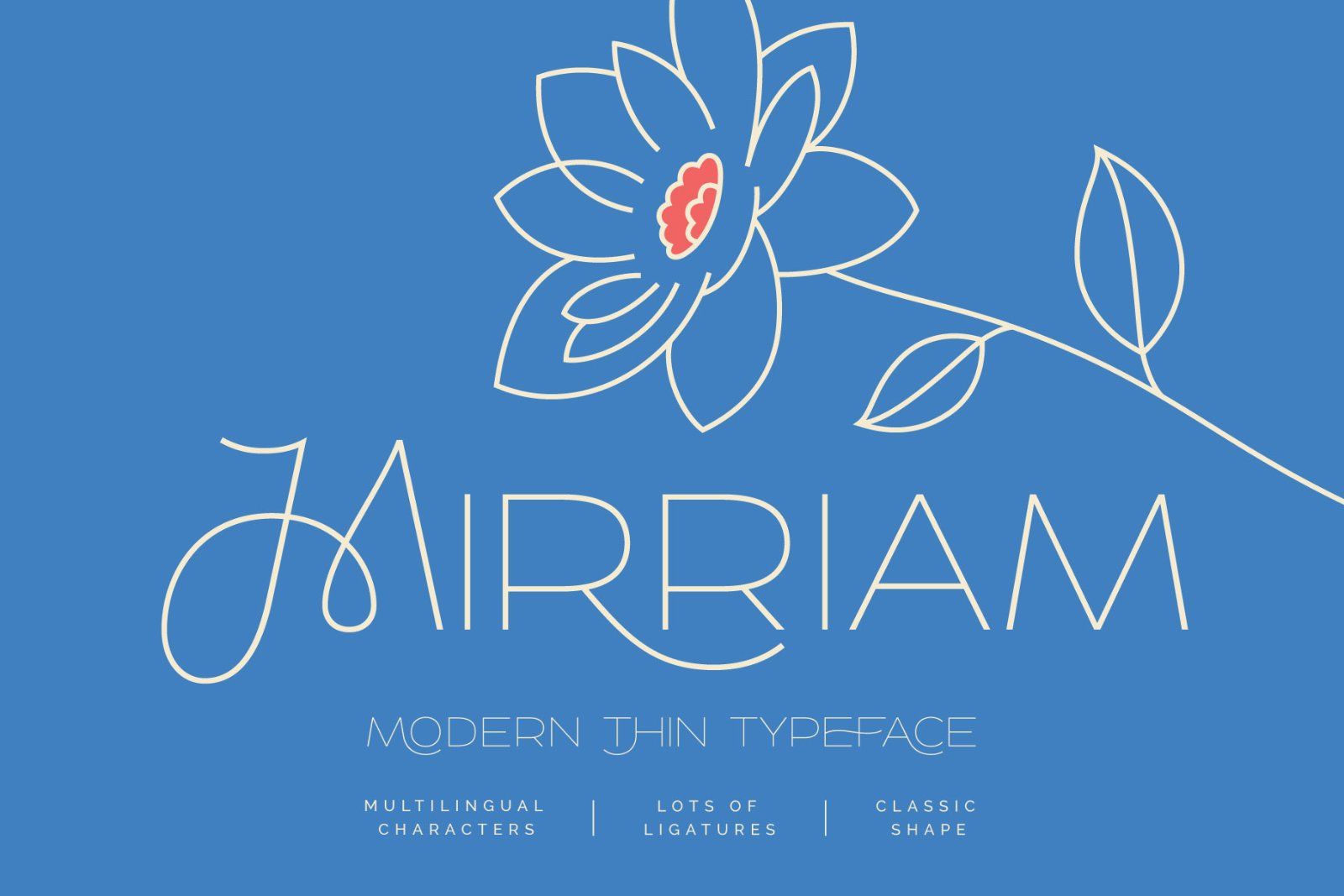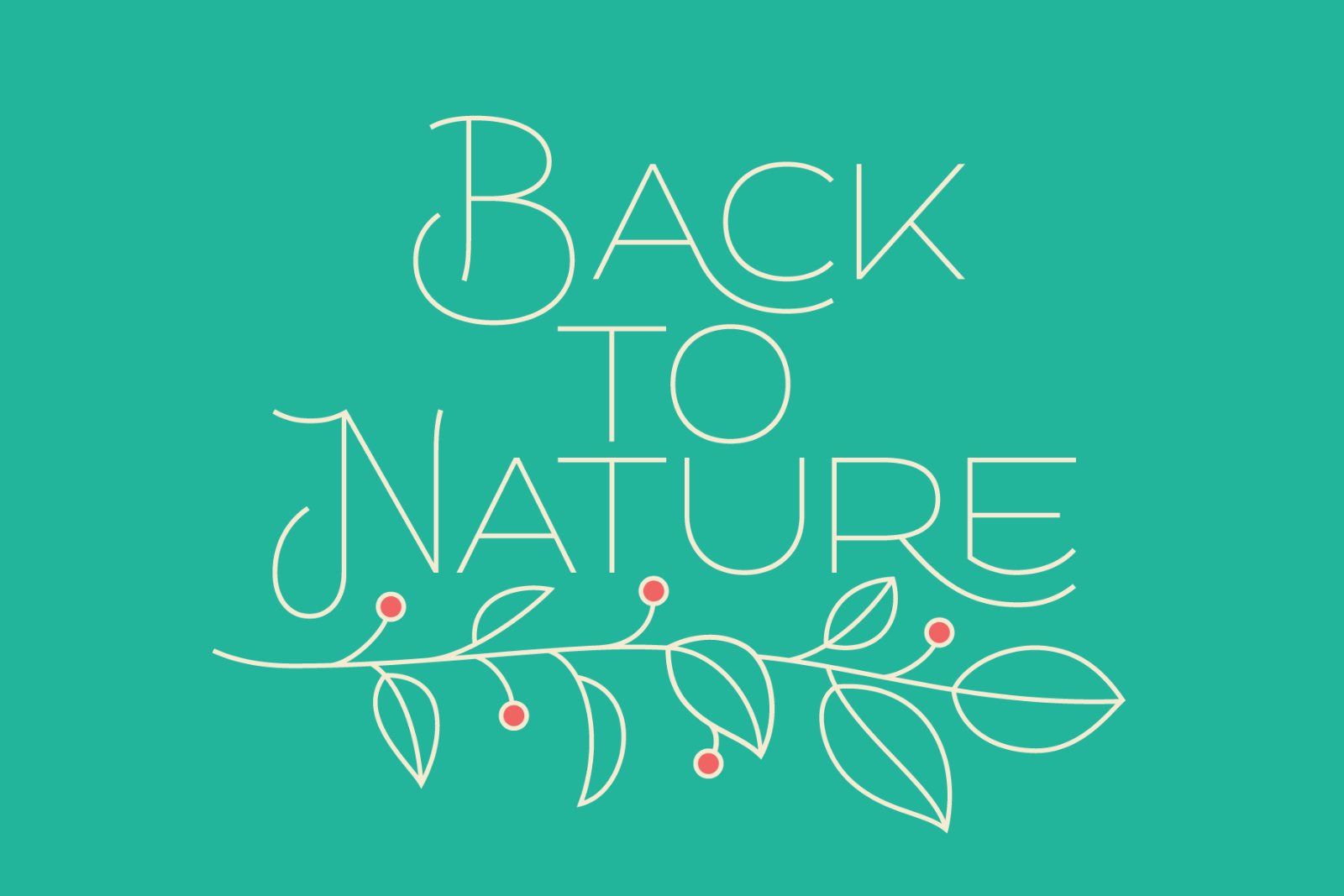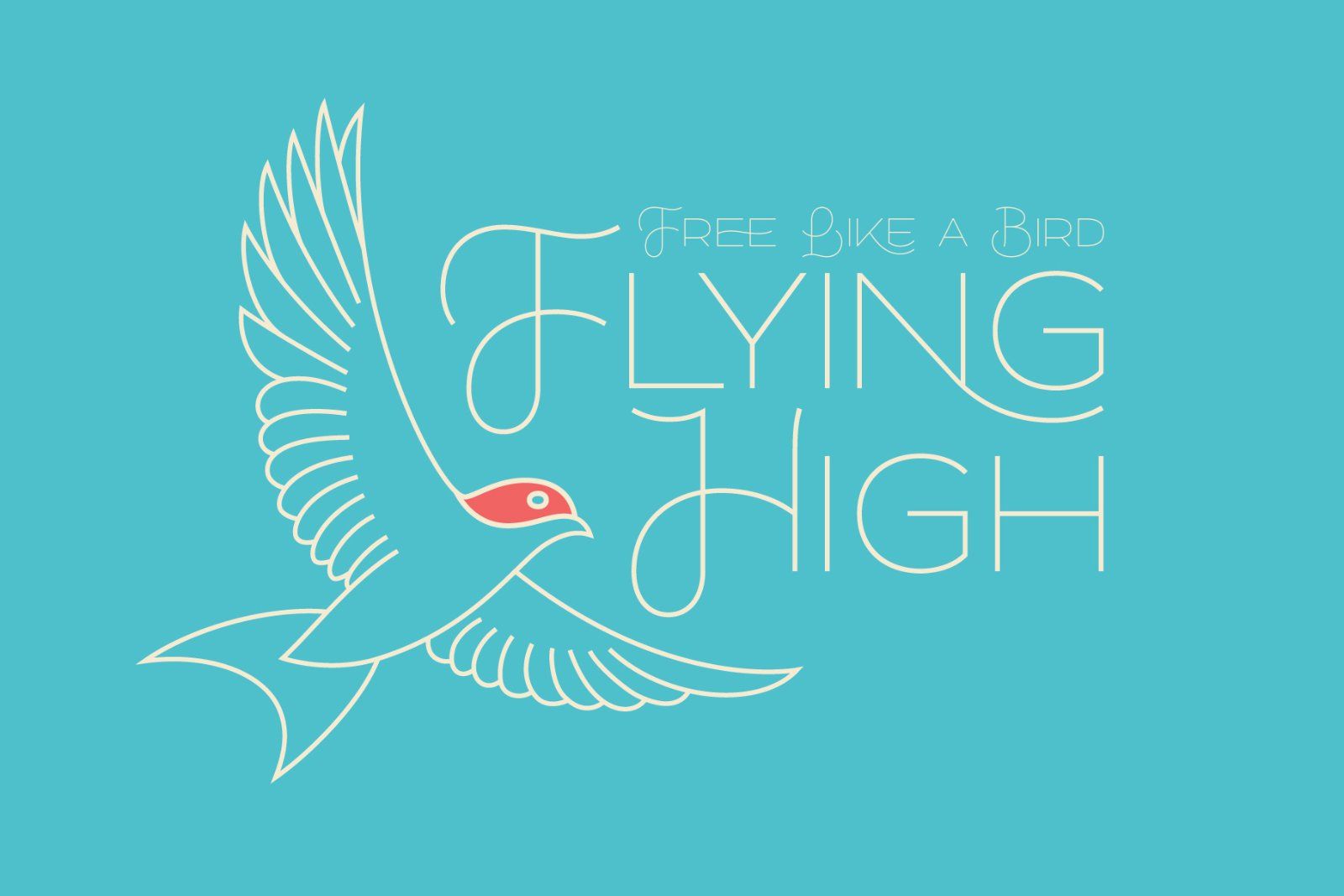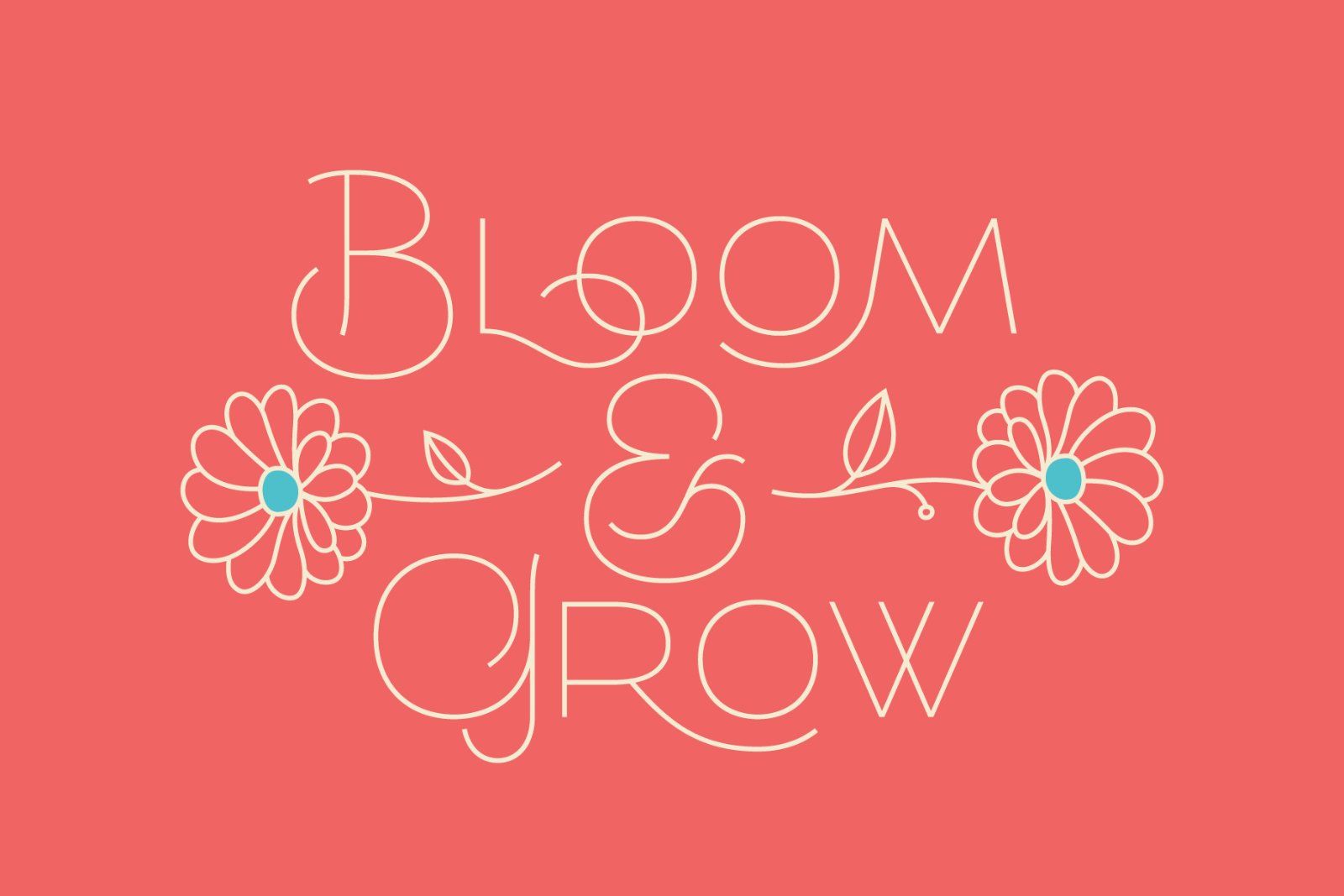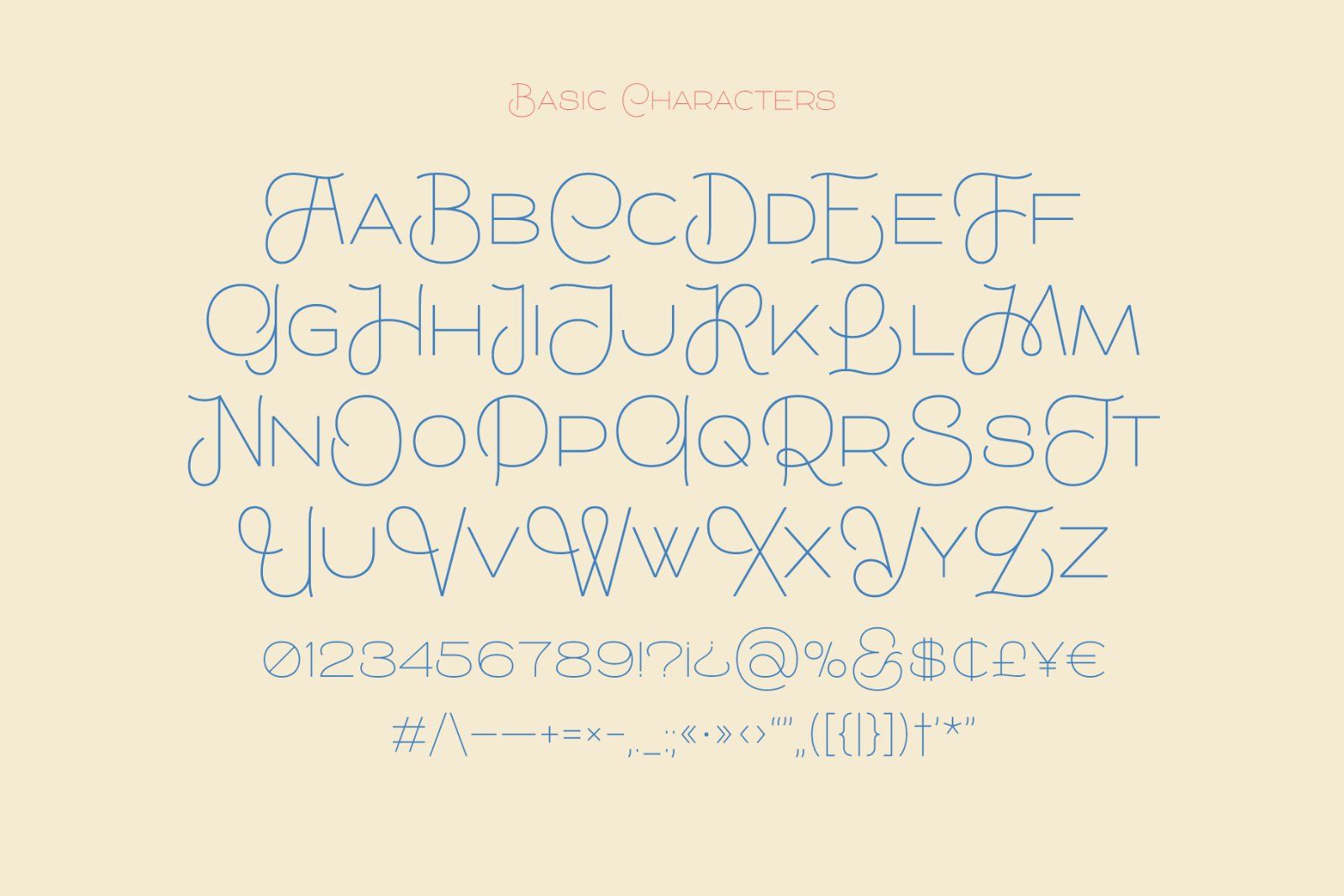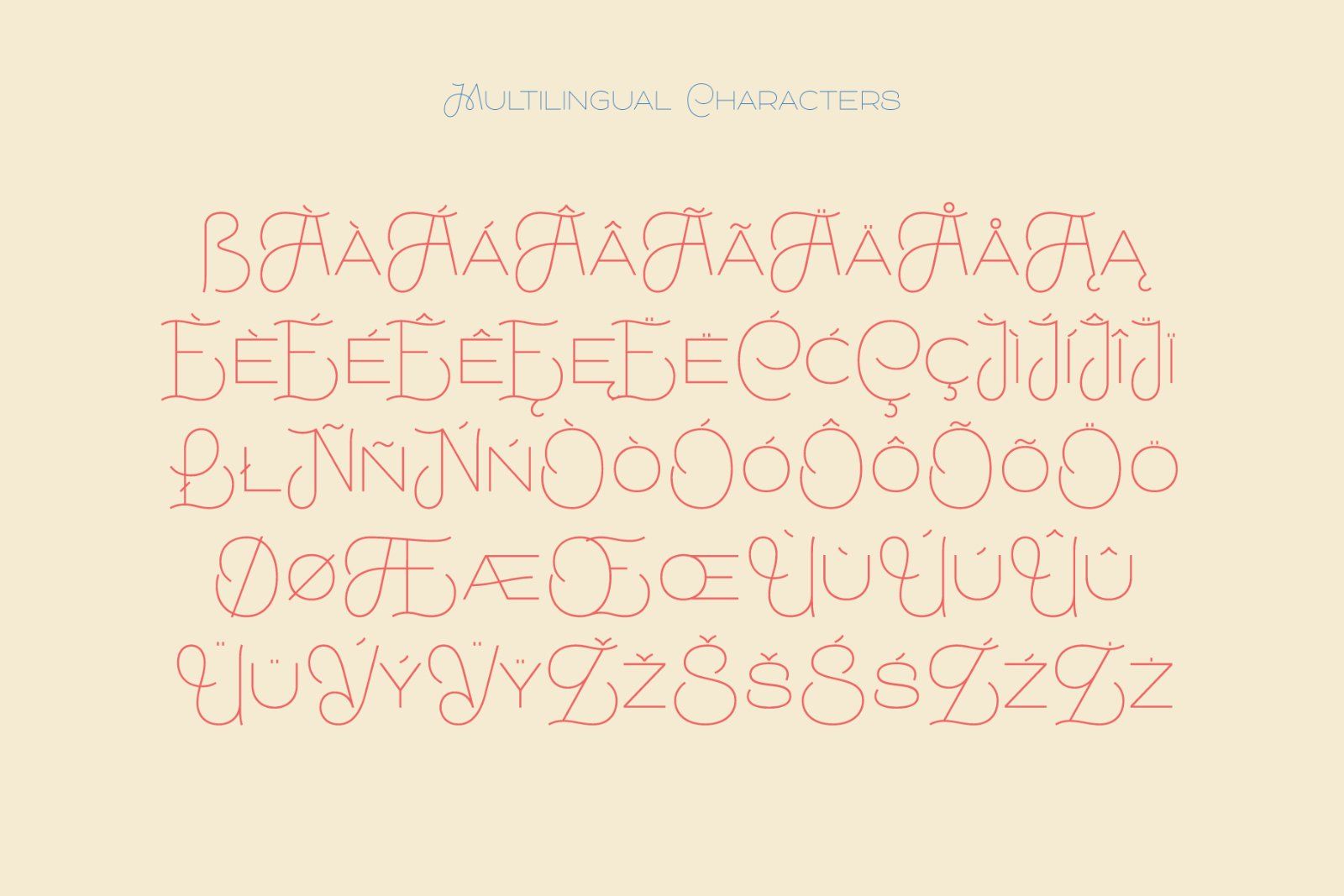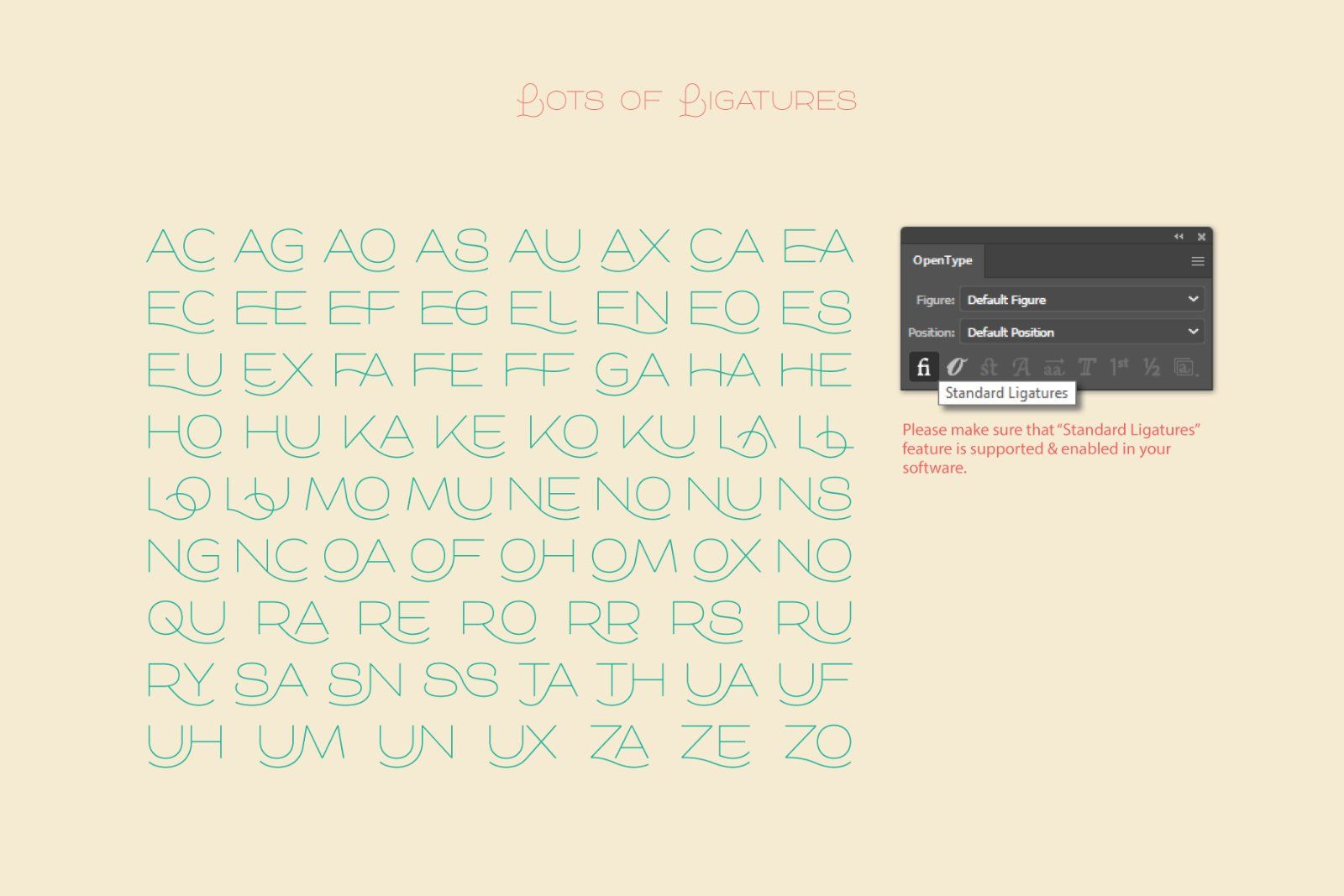
Hello! Presenting a modern thin font — Mirriam. It's an elegant typeface with airily light shape. Mirriam is rich on an original ligatures for small letters (all the 69 ligatures you can check on a corresponding screenshot).
Please make sure that “Standard Ligatures” feature is supported & enabled in your software. Also this font has multilingual support (check out a screenshot with available letters and signs). As a bonus you'll also get a vector illustrations from the preview images in Eps & editable Ai formats.